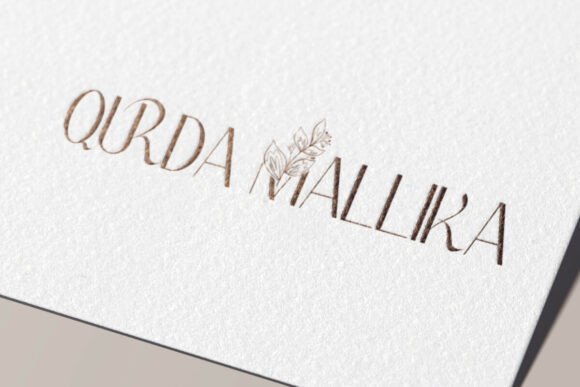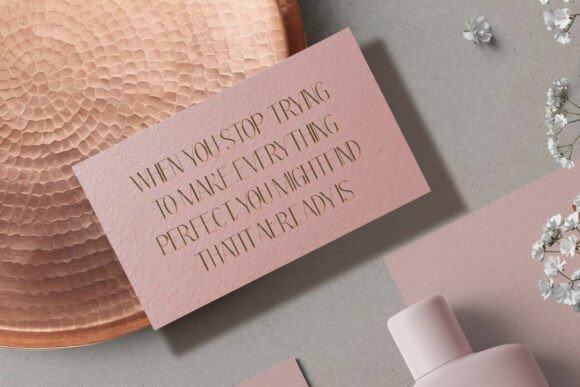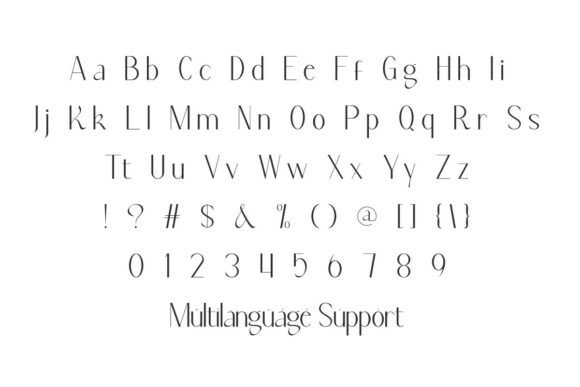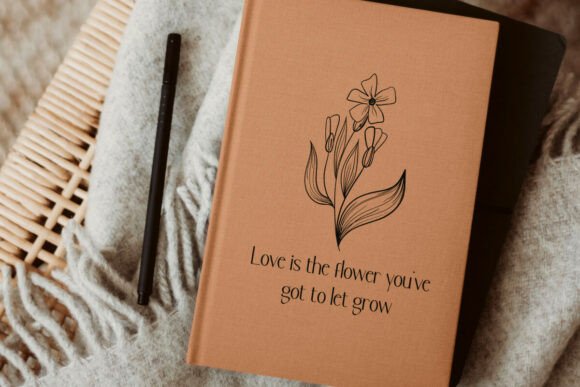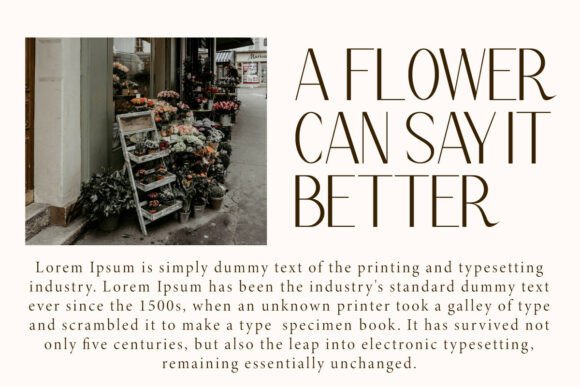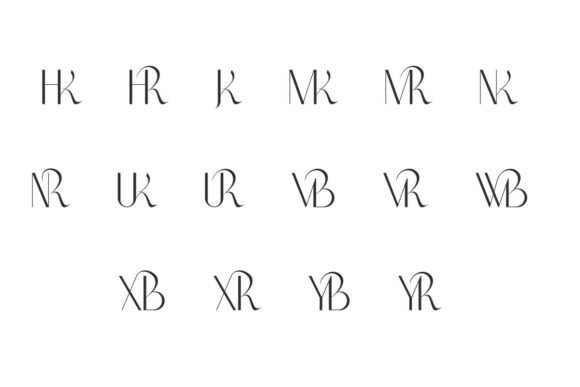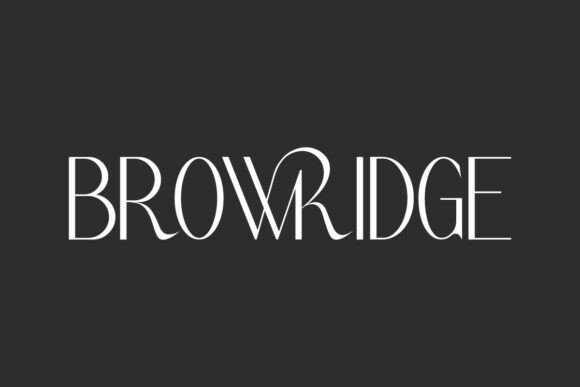
Browridge Font: Elevate Your Design with Elegance and Versatility
In the world of typography, a font can make or break a design. It’s the foundation upon which the entire visual identity of a project is built. For designers and crafters seeking a font that combines professionalism with personality, Browridge Font is an exceptional choice. This elegant sans-serif font is designed to meet the diverse needs of various projects, offering a trio of styles: Display, Sans, and Serif. Each style is crafted to serve a specific purpose, providing the tools necessary to create a cohesive and impactful visual identity.
The Browridge Font Family: A Trio of Styles
Browridge Font is not just a single font but a family of three distinct styles, each tailored for a specific use case:
- Display Font: Perfect for standout headlines, the Display font boasts sharp details that can grab attention and make a statement. Its unique flair makes it ideal for titles, banners, and any prominent text that needs to leave a lasting impression.
- Sans Font: For clean and straightforward layouts, the Sans font is the go-to choice. Its geometric purity ensures that the text is clear and easy to read, making it suitable for body text, captions, and any content that requires simplicity and clarity.
- Serif Font: When a classic, readable text is needed, the Serif font shines. The subtle addition of serifs enhances readability, making it perfect for longer texts, articles, and any content where ease of reading is paramount.
Elegance and Versatility: The Browridge Advantage
Browridge Font stands out for its elegant design and versatility. The font features perfect curves and includes several connected letters, giving it a fluid and harmonious look. This characteristic makes Browridge suitable for a wide range of projects, including:
- Advertisements: Make your ads stand out with the Display font, or keep them clean and readable with the Sans or Serif fonts.
- Custom Design: From business cards to brochures, Browridge’s versatility shines in custom designs.
- Invitations: The elegant curves of Browridge make it perfect for formal and casual invitations alike.
- Labels and Signage: Communicate your message clearly with the clean Sans font or draw attention with the Display font.
- Stationery and Template Design: Create a cohesive brand image with Browridge’s consistent and elegant look.
- Websites: Enhance your website’s readability and aesthetic with the Serif or Sans fonts.
Why Choose Browridge Font?
Browridge Font is more than just a typeface; it’s a design solution. Here are a few reasons why designers and crafters should consider Browridge for their projects:
- Cohesive Visual Identity: The trio of styles ensures that you have all the tools needed to create a consistent visual brand across various platforms.
- Professionalism and Personality: Browridge strikes the perfect balance between professionalism and personality, making it suitable for a wide range of projects and audiences.
- Ease of Use: With its clear and readable design, Browridge enhances the user experience, whether in print or digital formats.
- Versatility: From elegant and formal to modern and clean, Browridge adapts to any design requirement.
Browridge Font offers designers and crafters a powerful tool to elevate their projects. With its elegant design, versatile trio of styles, and suitability for a wide range of applications, Browridge is poised to become a go-to font for those seeking to create impactful and cohesive visual identities. Whether you’re working on a website, a print advertisement, or a custom design project, Browridge Font provides the elegance, versatility, and professionalism needed to make your work stand out.